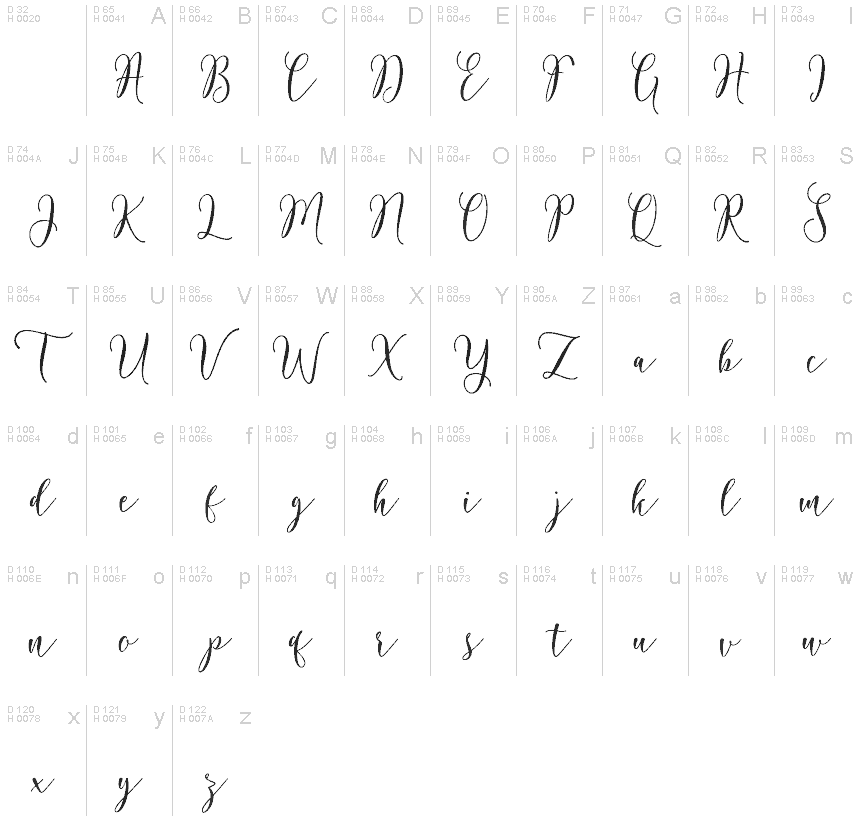
Introducing Rosetica Smooth Script
This is a smooth script font with handwriting style. This time made soft so it gives the character of handwriting very simple, real and sweet.